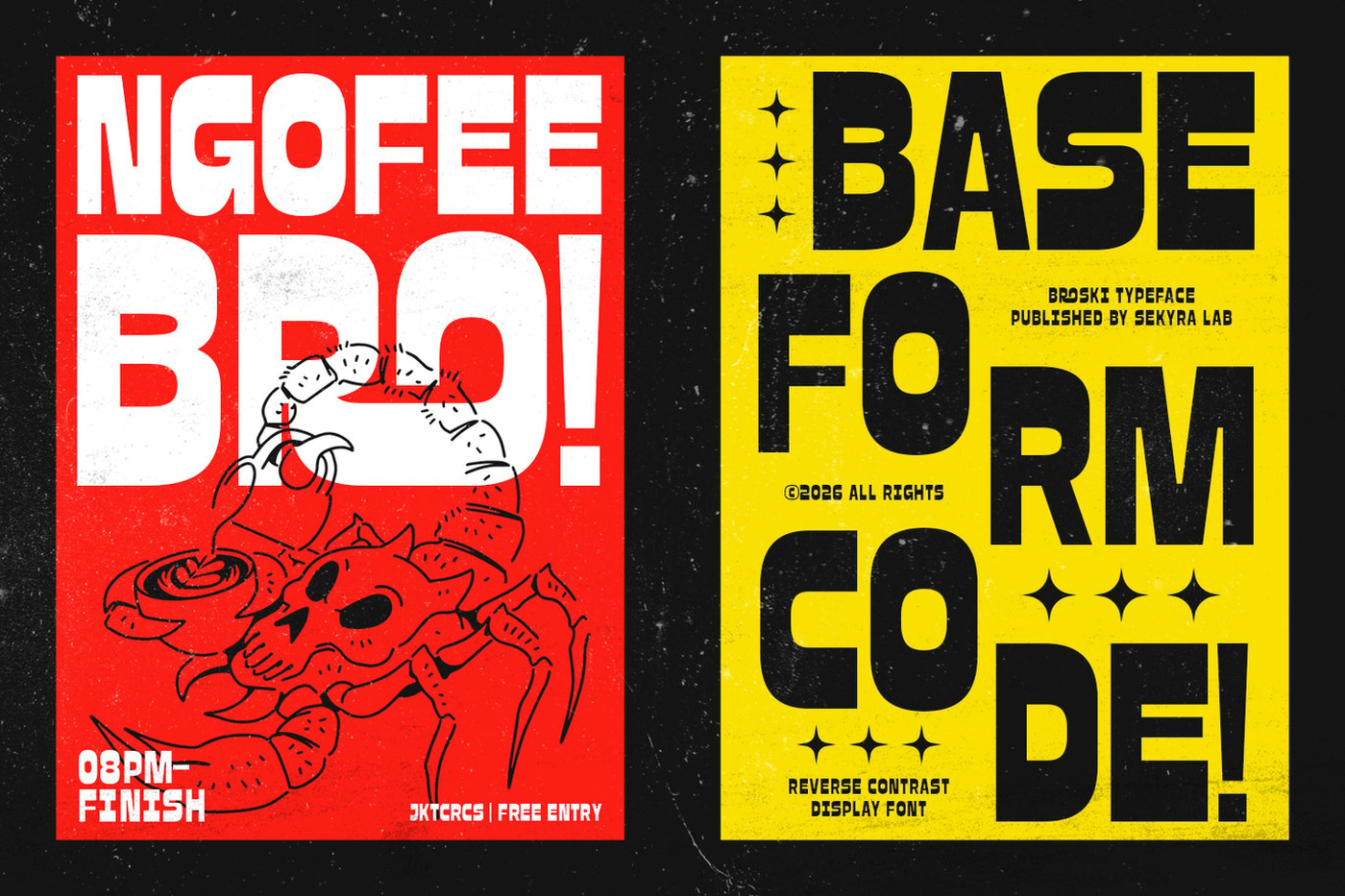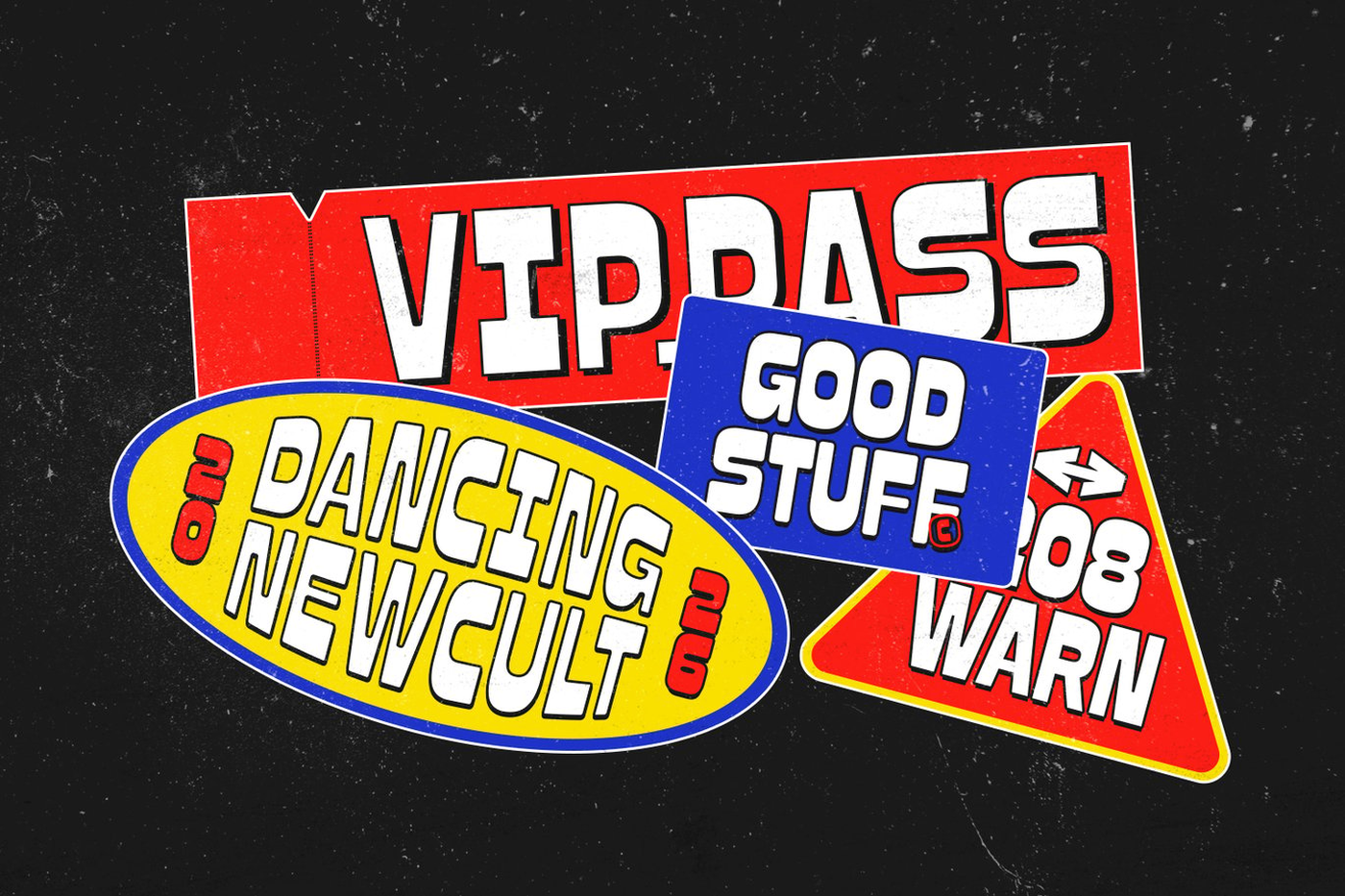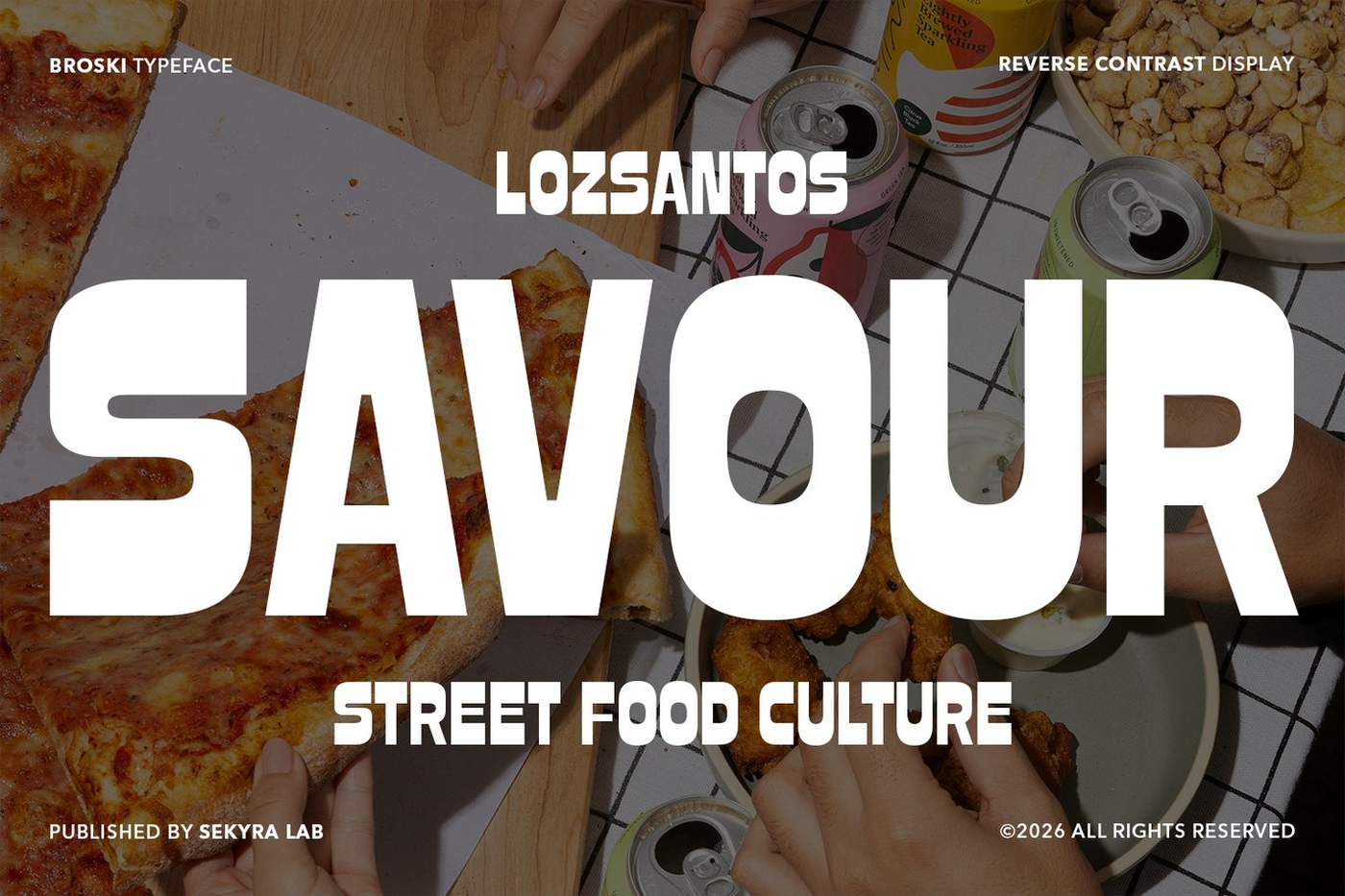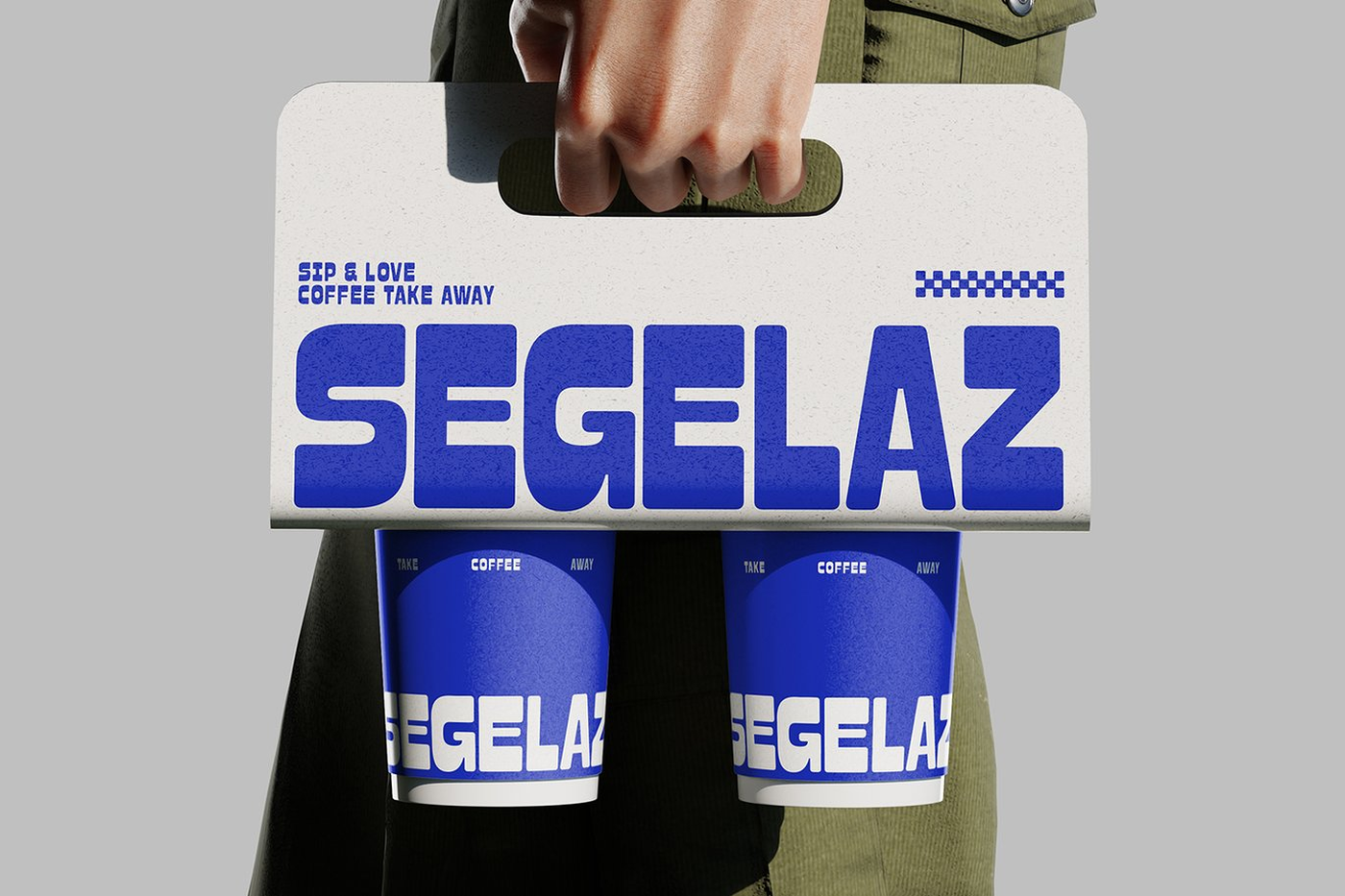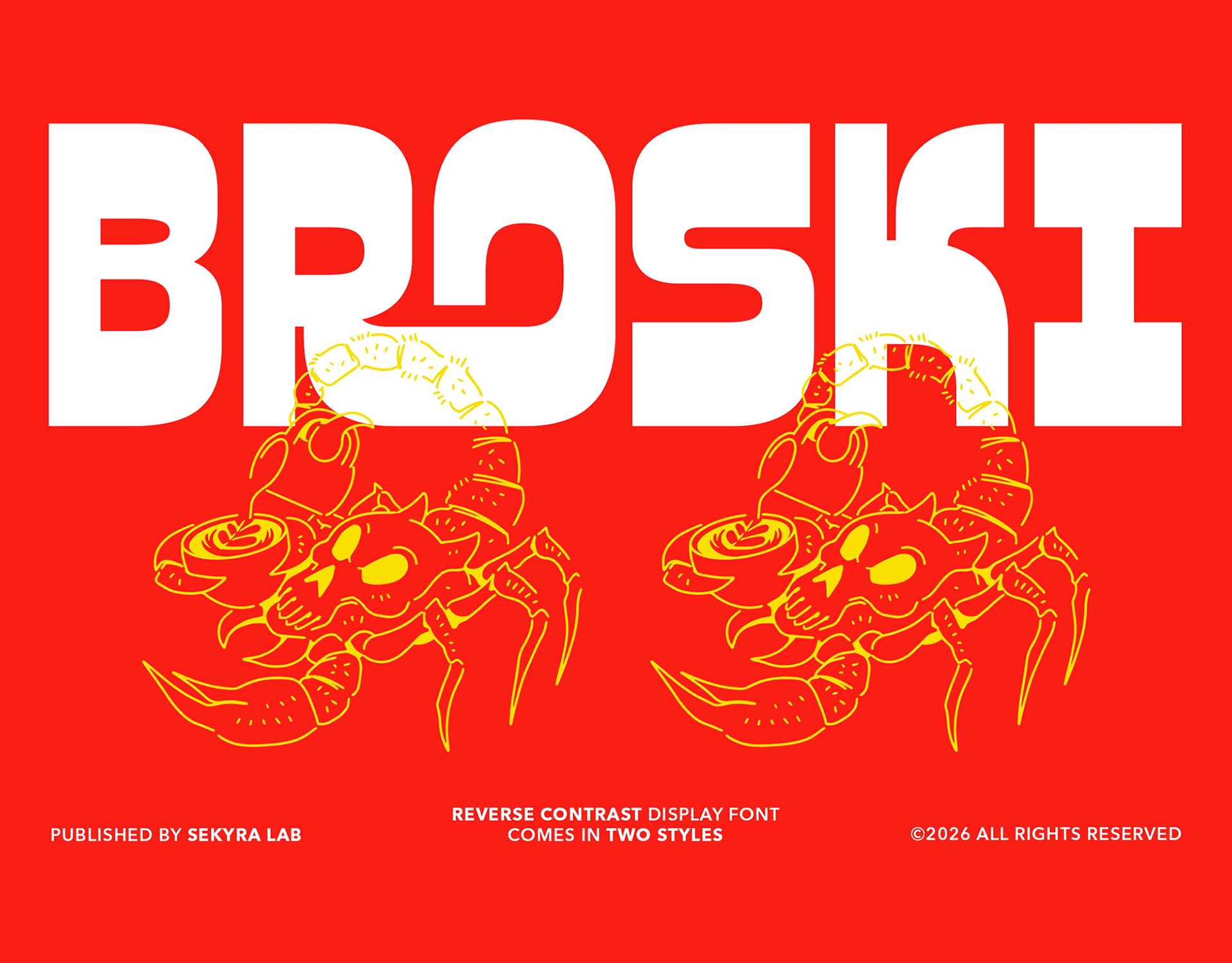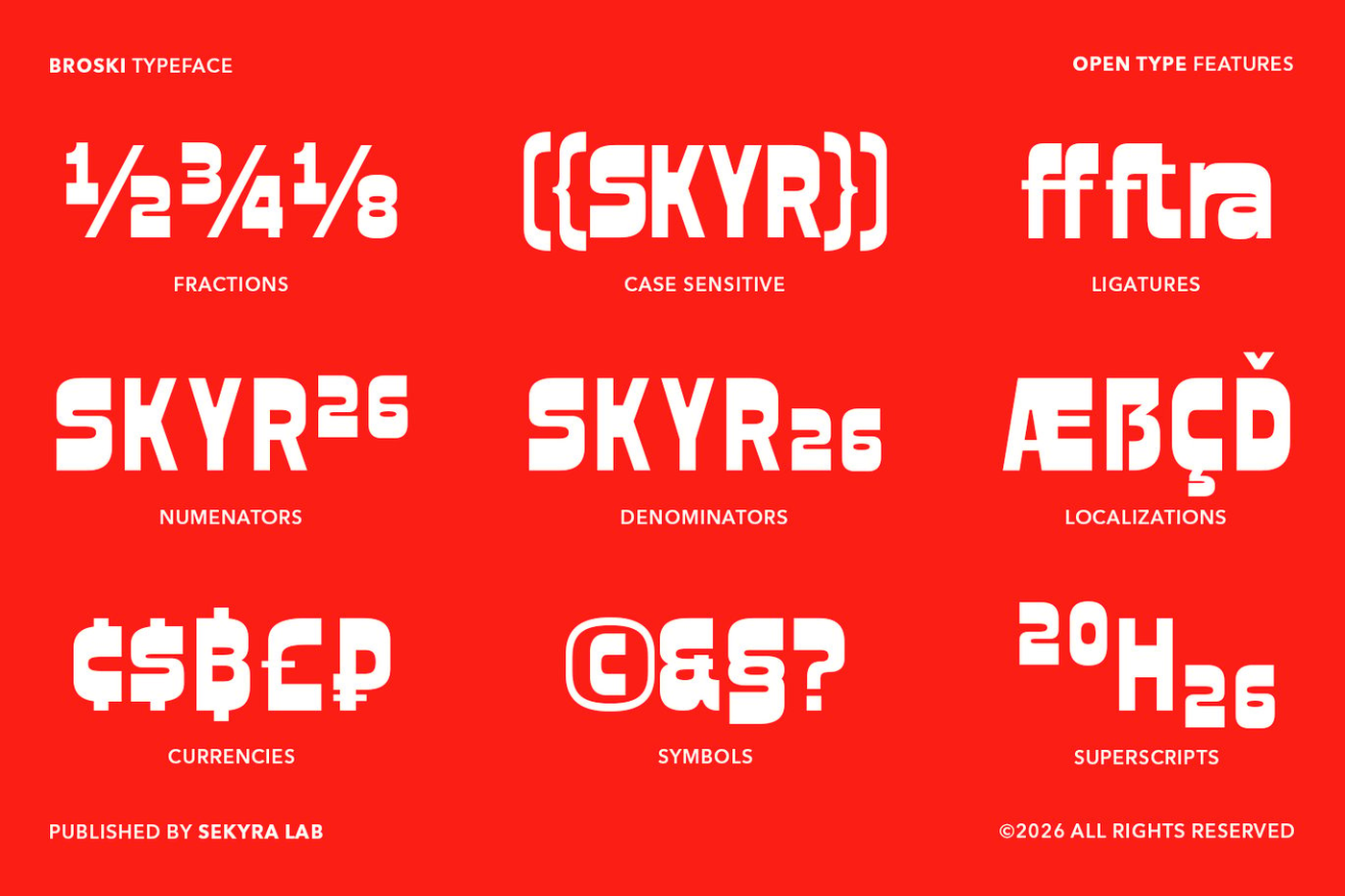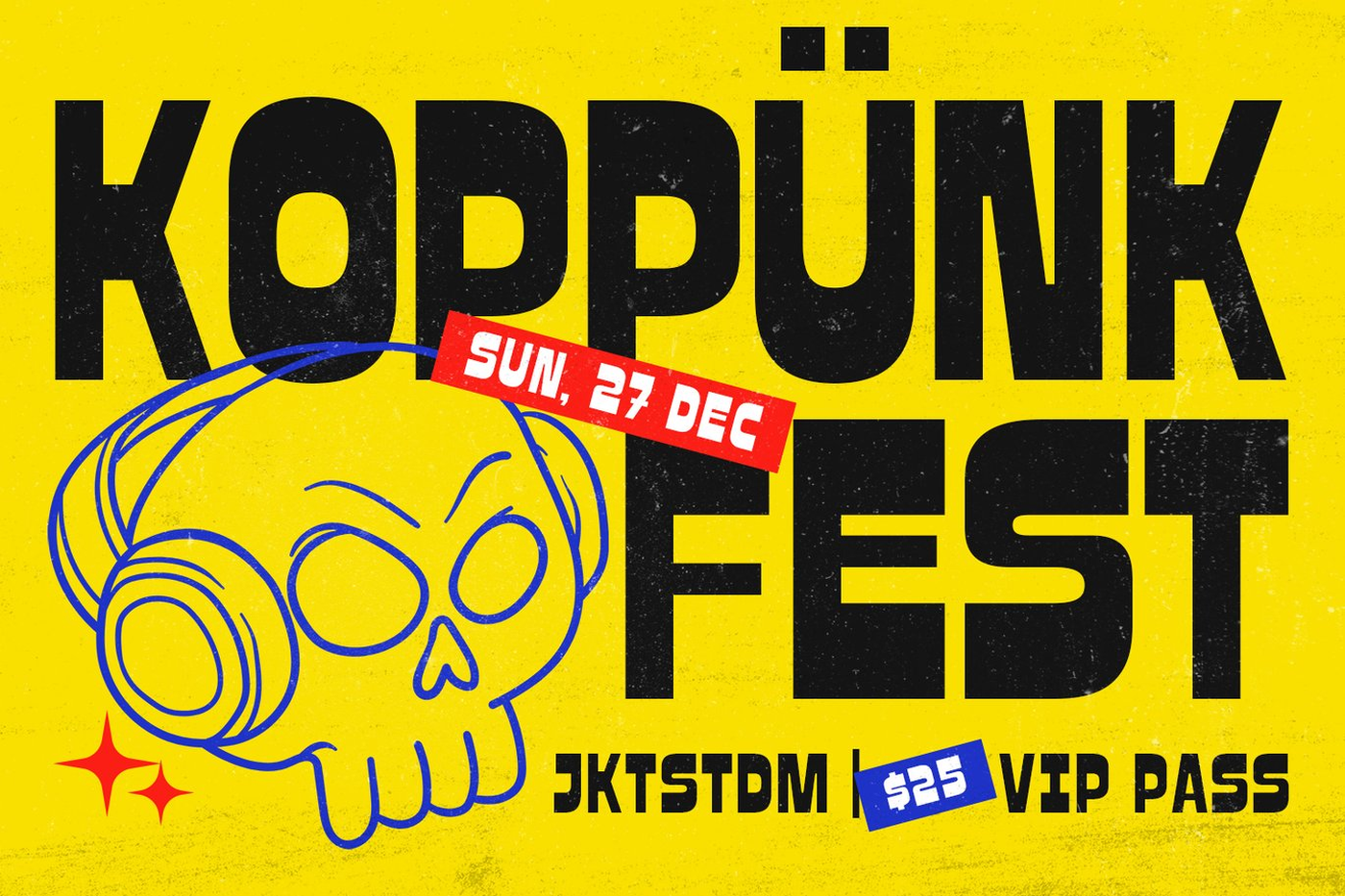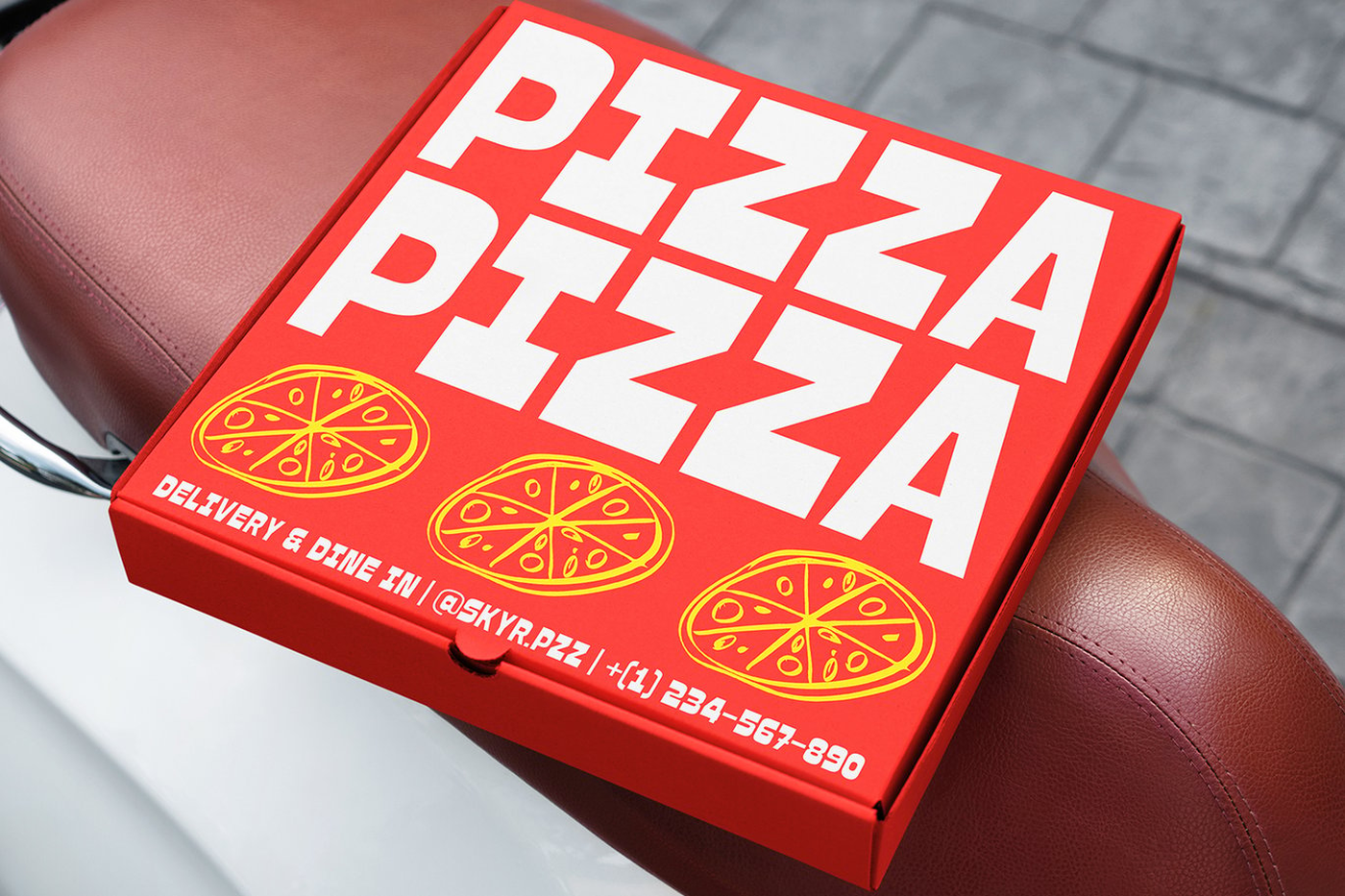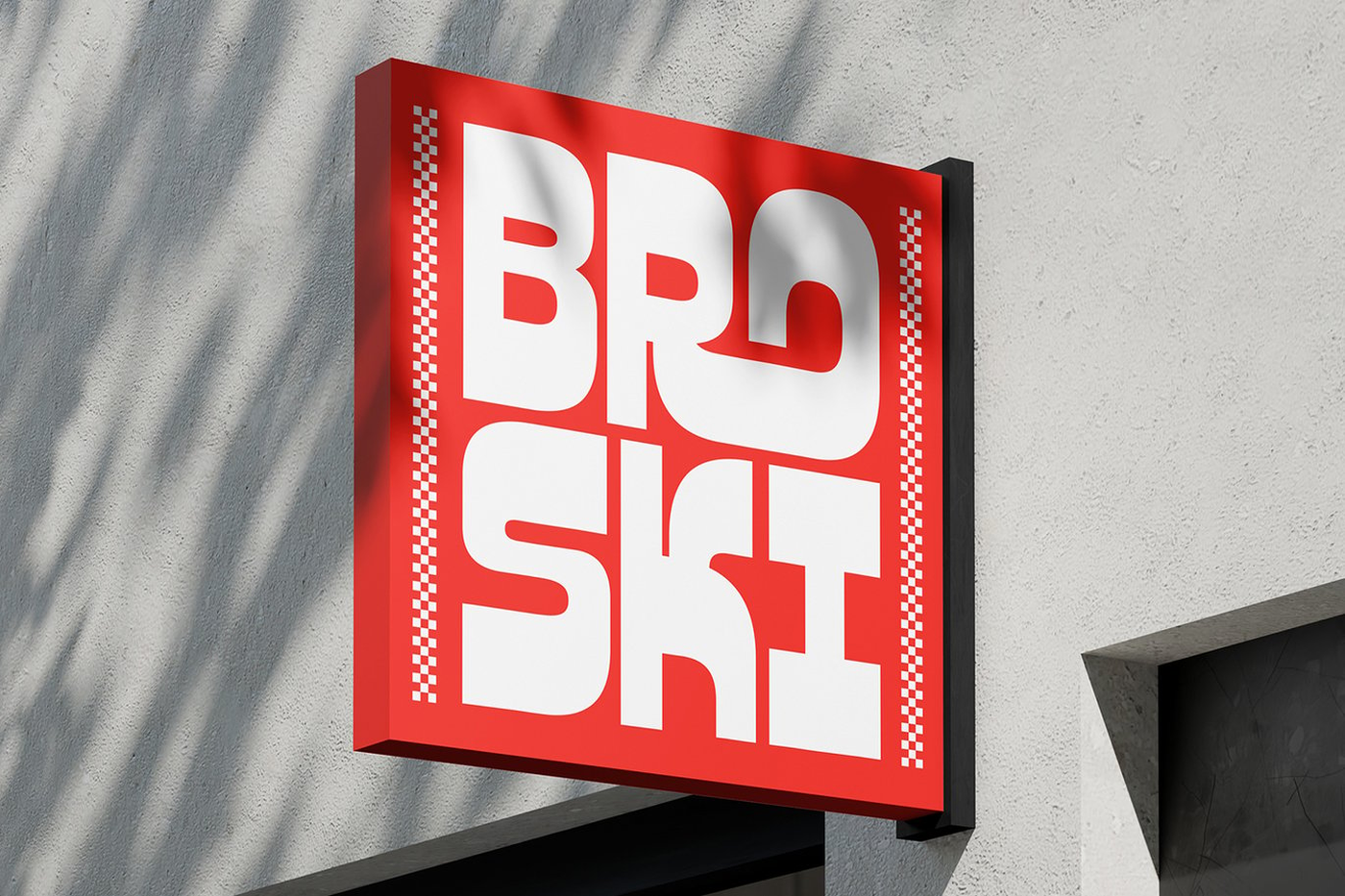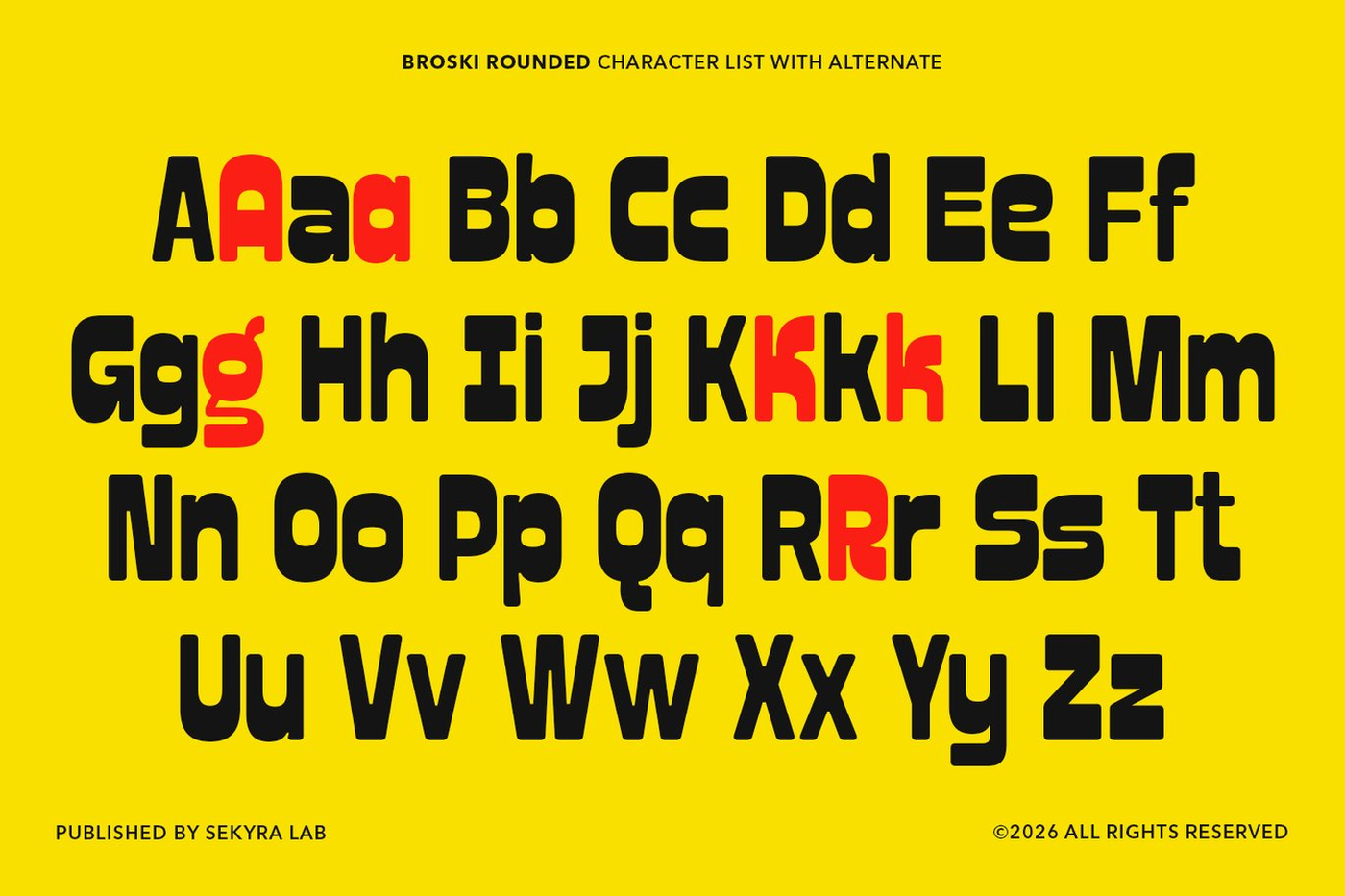
Broski - Display Font
Broski is a bold reverse contrast display font designed with strong visual impact and playful vintage character. Inspired by classic wood type and retro poster typography, this typeface features thick horizontal strokes and slimmer verticals, creating a distinctive reverse contrast structure that immediately grabs attention. The font comes in two distinct styles: Regular and Rounded, giving you flexibility for different visual moods. The Regular style delivers a sharp, bold presence perfect for strong headlines, while the Rounded style softens the forms for a friendlier and more playful look.